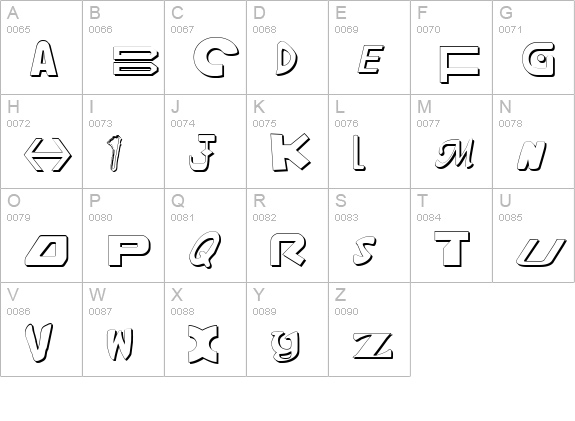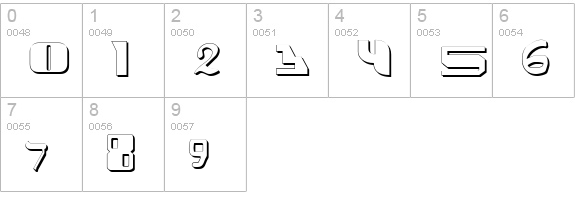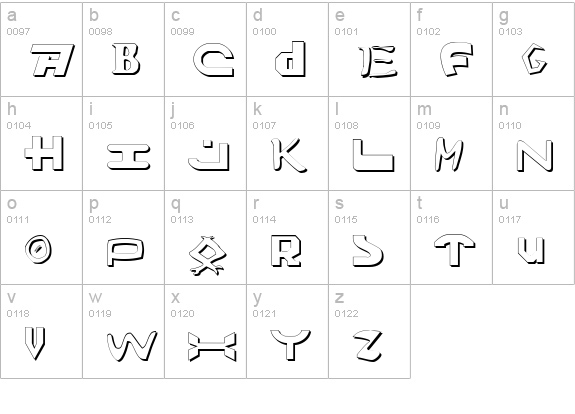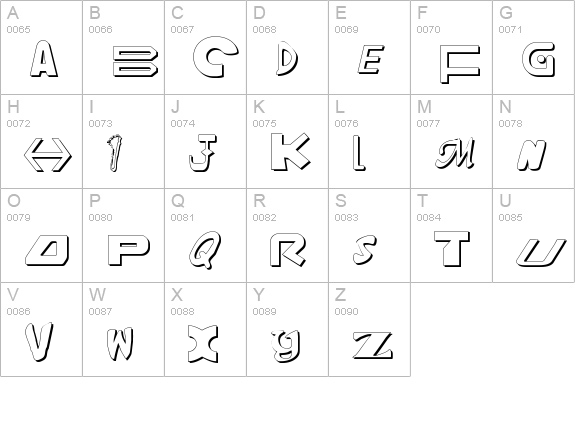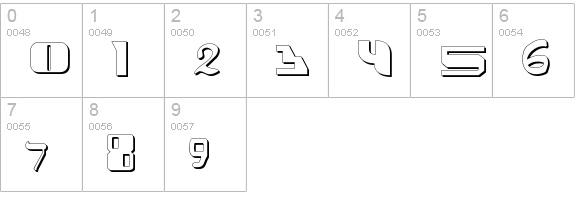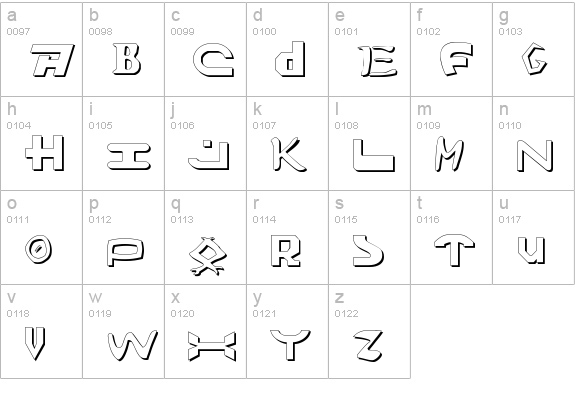
Amalgam Shadow Font Details
Amalgam Shadow font is a modern and stylish typeface that exudes sophistication and elegance. Its sleek and unique design makes it perfect for a wide range of projects, from branding to graphic design. The font features a striking shadow effect that adds depth and dimension to any text. Best of all, Amalgam Shadow font is completely free to use and is available for download at FontsMarket.com. Whether you're working on a personal project or a professional design, this font is sure to make a statement and elevate your work to the next level. Don't miss out on the opportunity to add this stunning font to your collection today!